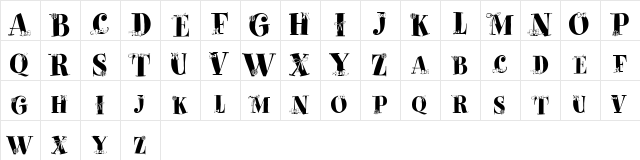
Paquet Cadeaux Regular
Design Context for Paquet Cadeaux Typeface
Paquet Cadeaux is a composed and adaptable typeface that performs quietly and consistently across a wide range of design contexts.